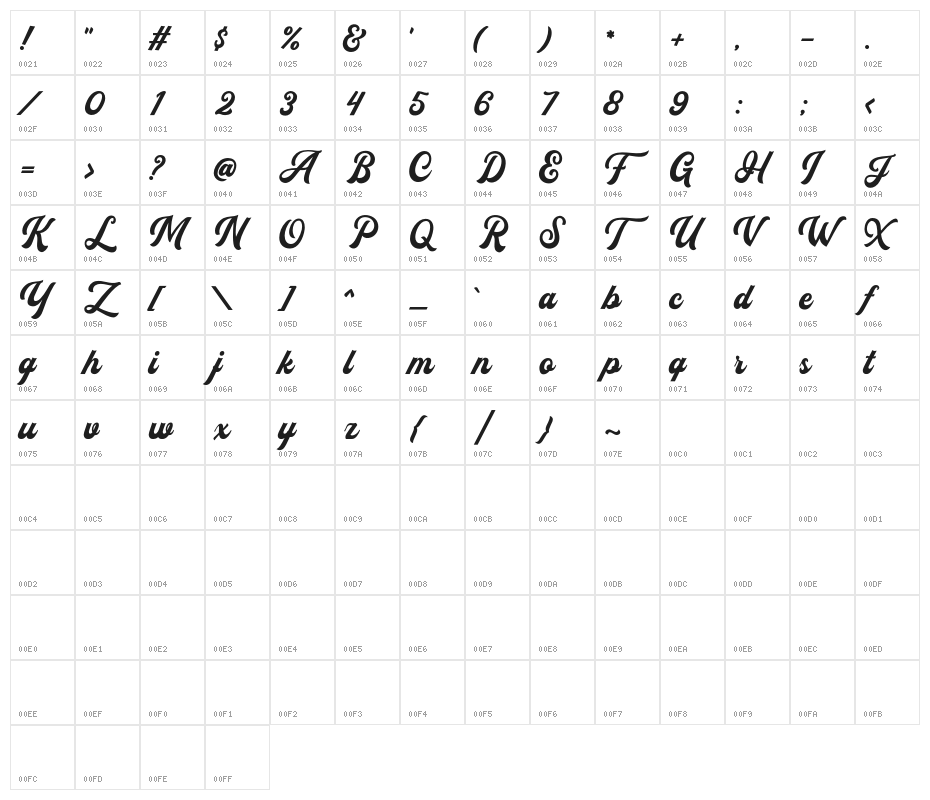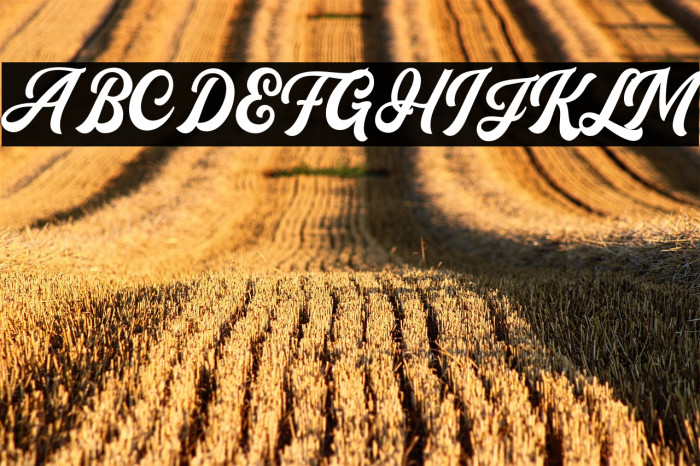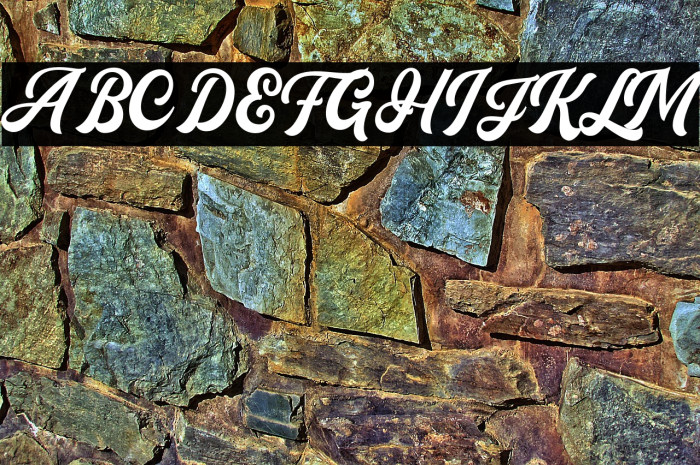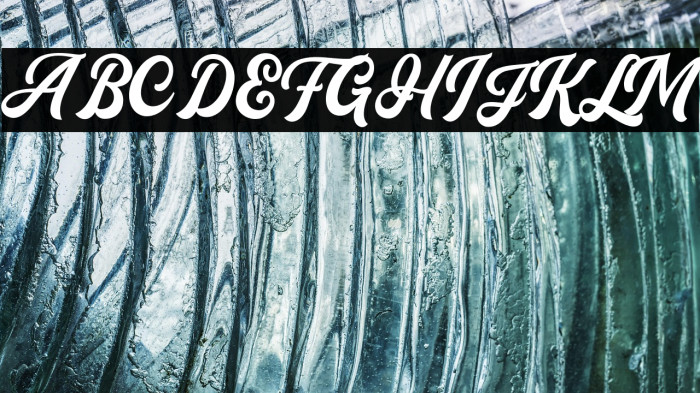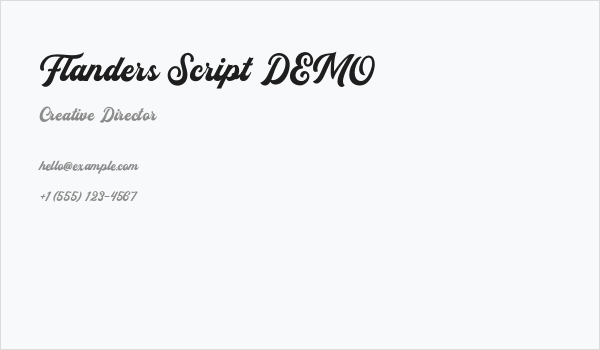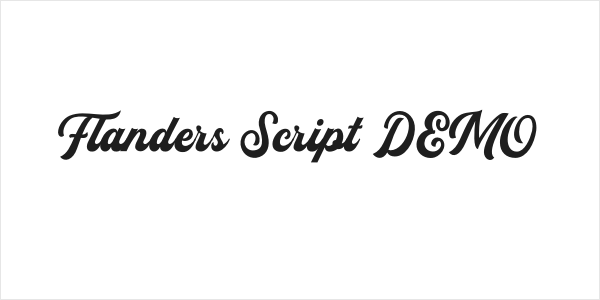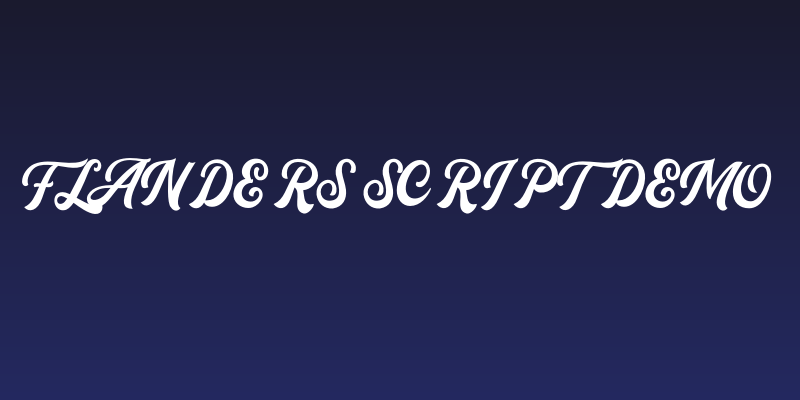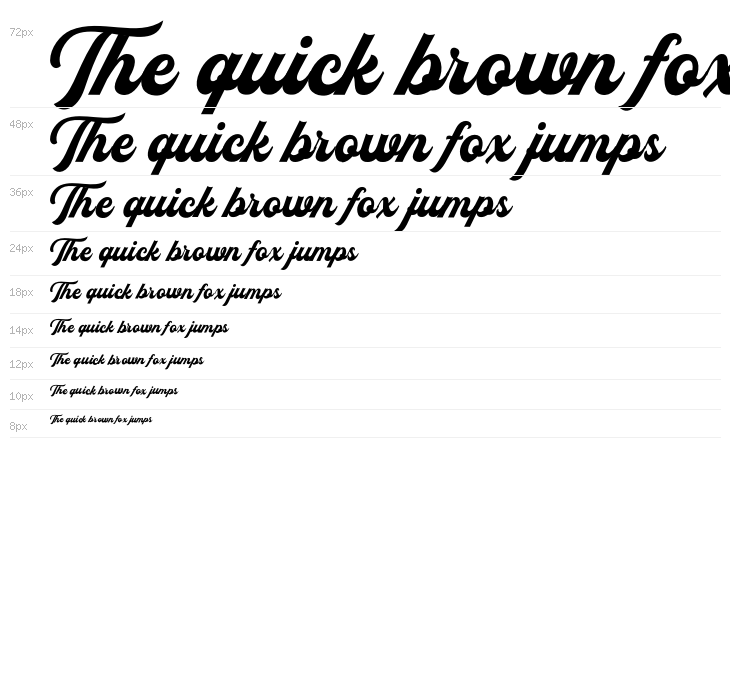
Flanders Script DEMO Font
Flanders Script DEMO Description
This elegant script font features a flowing, cursive style with smooth, connected strokes that emulate traditional handwriting. The uppercase letters are ornate and slightly larger, providing a graceful and sophisticated appearance. The lowercase letters maintain a consistent flow, enhancing readability while retaining a decorative flair. The numerals and special characters are designed to match the overall aesthetic, ensuring a cohesive look across all text elements. This font's classic script style is perfect for adding a touch of elegance and sophistication to any project.
| Overall Style | Classic |
| Use Case | Logos, Invitations, Decorative text |
| Proposed Projects | Ideal for wedding invitations, greeting cards, branding, and elegant logo designs. |